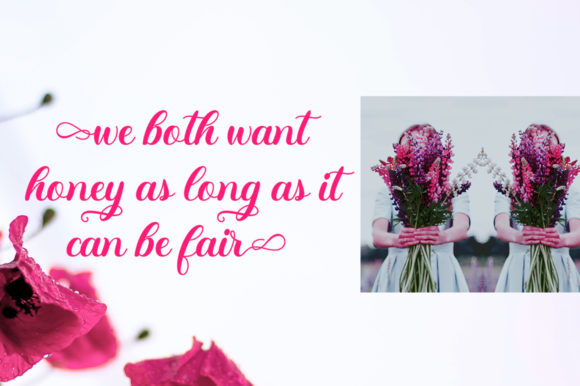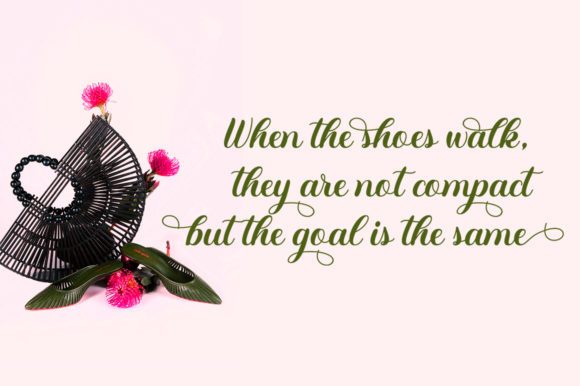
Sweden Love Font
db-ku.com - Script & Handwritten -- Sweden Love is a charming and friendly handwritten font. This font’s versatility will appeal to a wide range of crafty ideas, from letterheads and titles, to stationery.